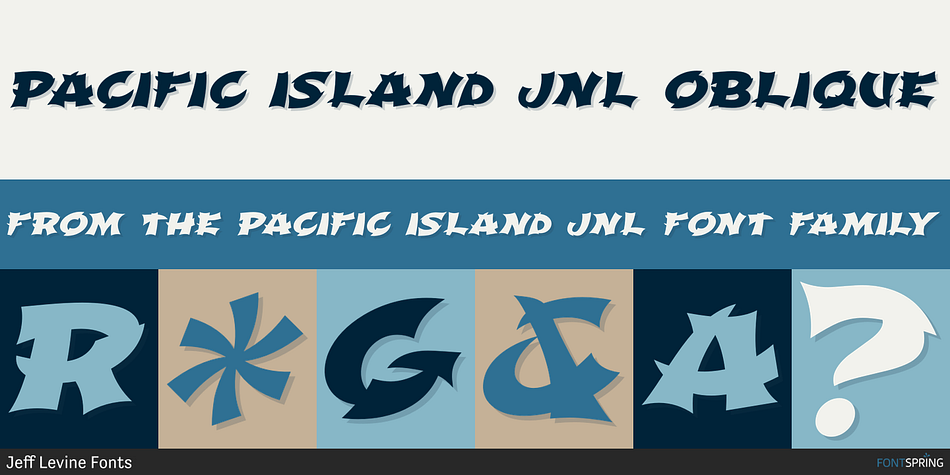
PACIFIC ISLAND JNL OBLIQUE
Designed by Jeff Levine, Pacific Island JNL is an exotic font family. This typeface has two styles and was published by Jeff Levine Fonts.
Lettering on the sheet music cover for the title song from the 1957 Marlon Brando movie “Sayonara” was the model for Pacific Island JNL.
The design has an faux Asian influence, but also reflects a bit of show card lettering as well.  Available in both regular and oblique versions.